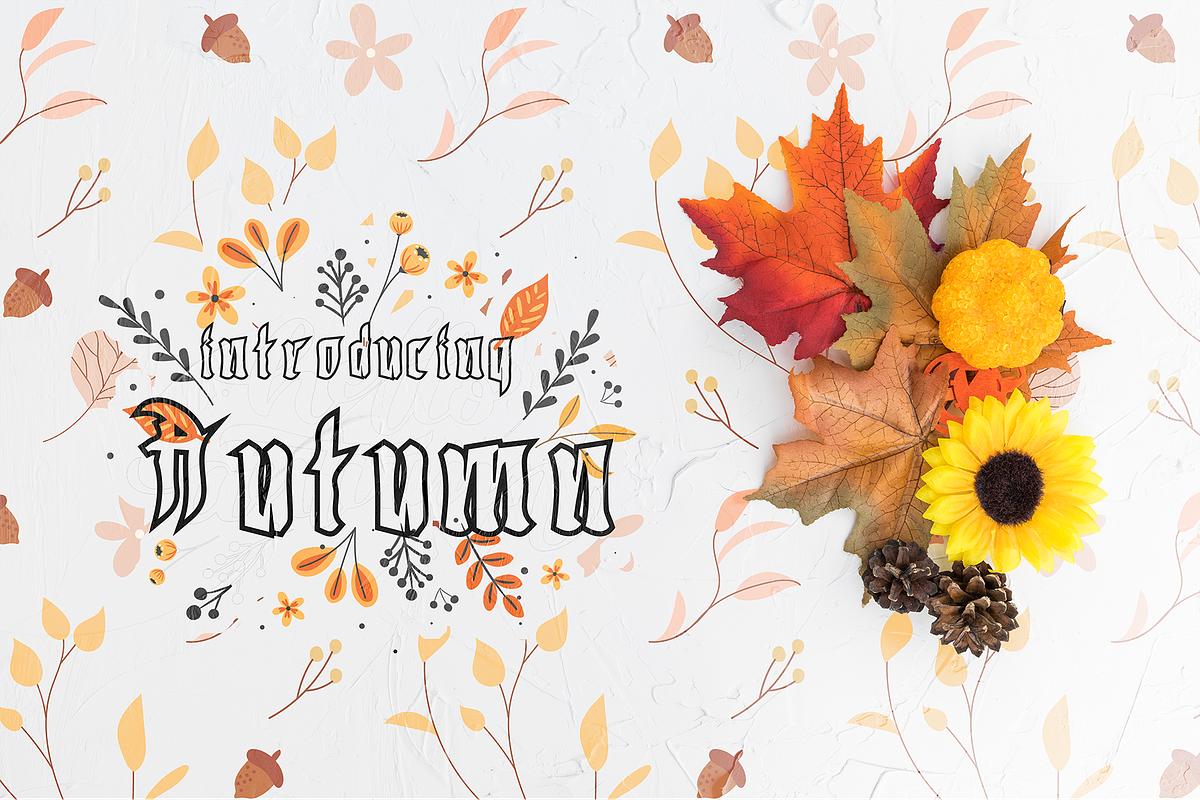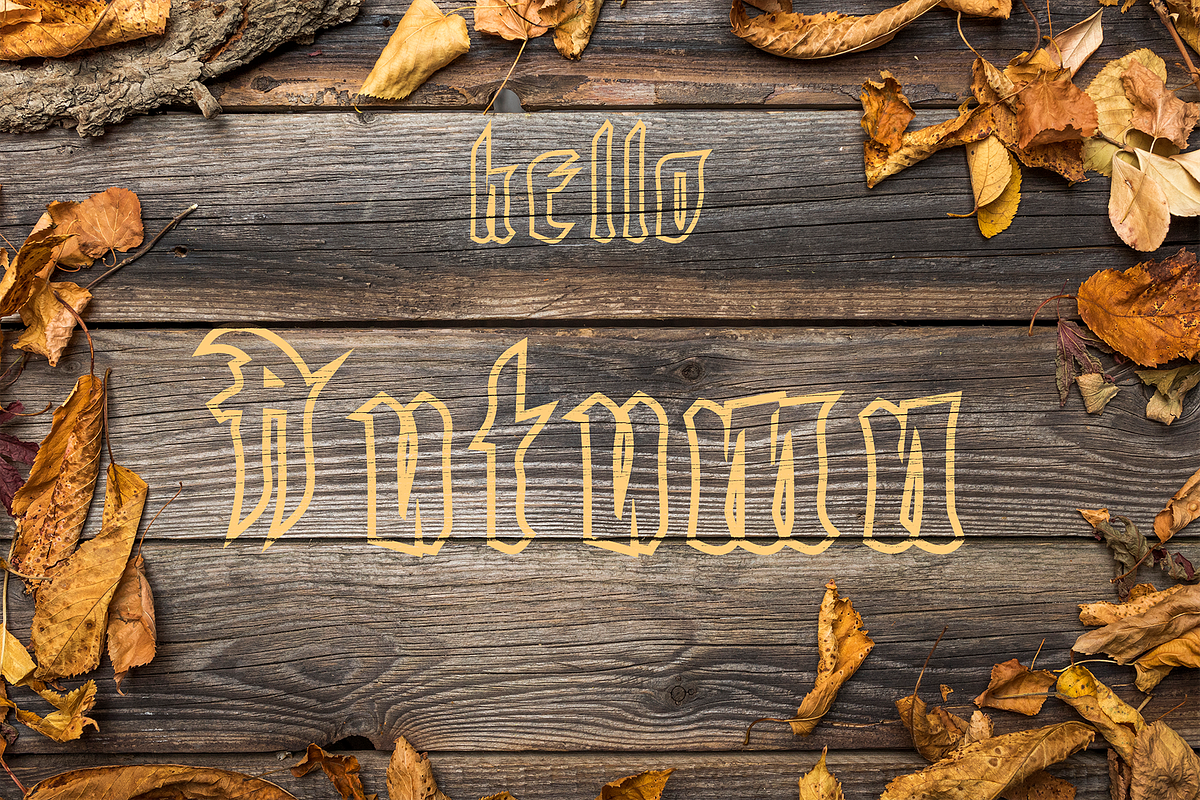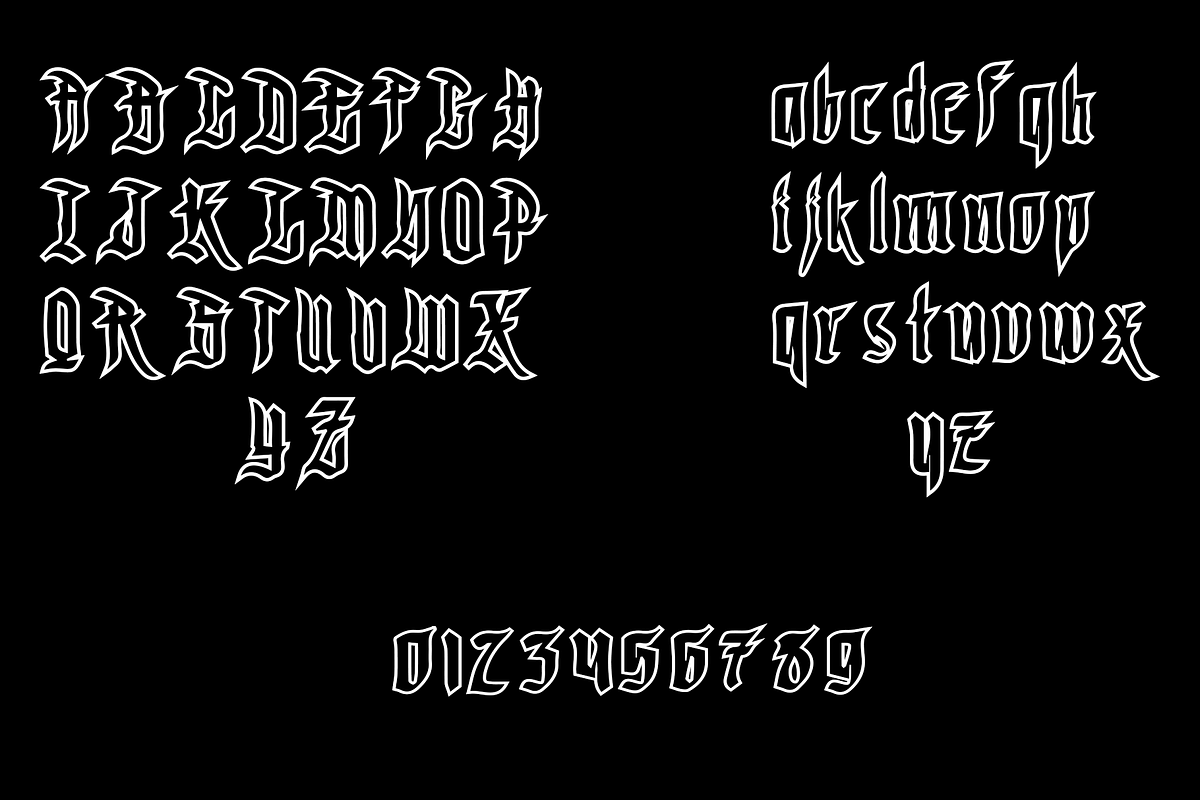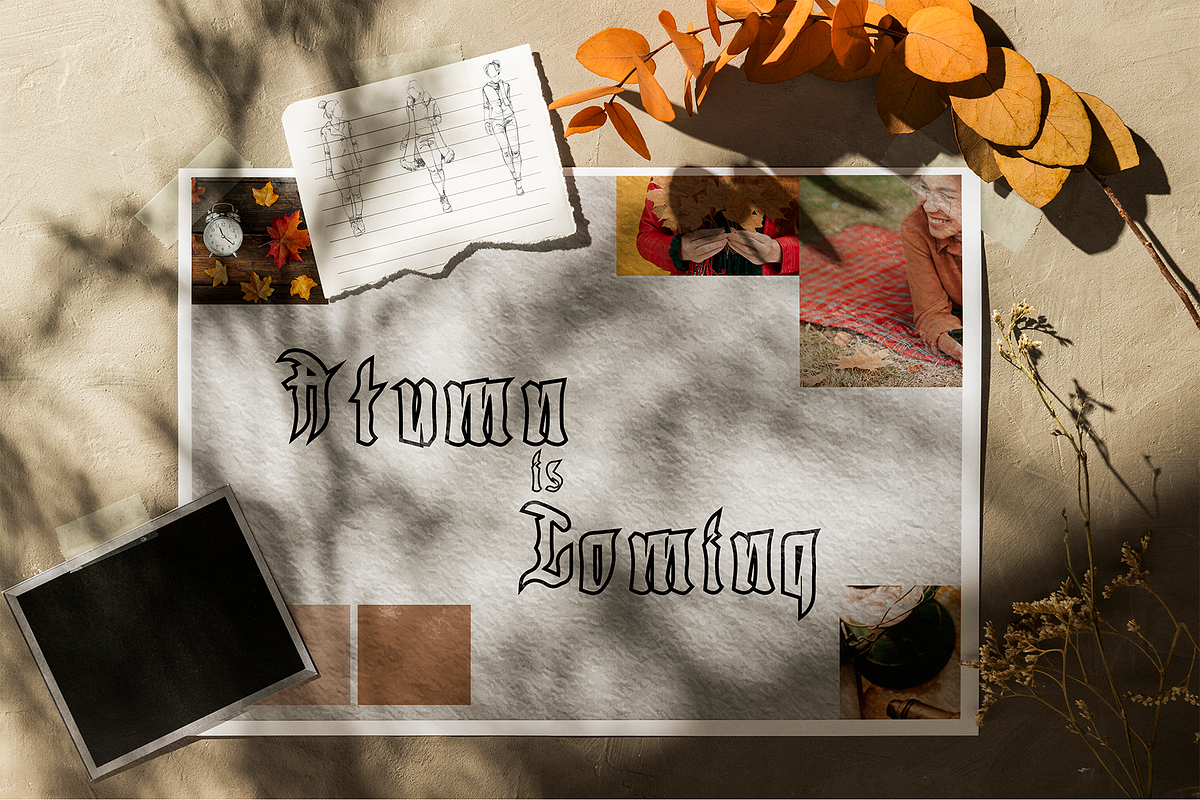
Autumn | Fall
Fall is a chic and distinct blacklettered outlined font. No matter the topic, this font will be an incredibly asset to your fonts’ library, as it has the potential to elevate any creation.